20 Fonts for Minimalist Design That Build Clean, Modern Brands
Fonts for minimalist design have become a favorite because of their simple structure, strong readability, and clean aesthetics. Choosing the right font is essential to communicate information clearly without adding visual clutter. As a result, users can feel more comfortable navigating a website or application.
Moreover, studies on typography and user experience show that fonts aligned with the target audience and brand identity can improve engagement and usability. To save your time, this article will walk you through 20 choices of minimalist fonts.
Key Takeaways:
- Minimalist fonts rely on clarity. Choosing the right font improves readability, visual balance, and overall user experience.
- Font choice shapes brand perception. Minimalist typography helps create a clean, modern, and professional brand identity.
- Avoid generic fonts when possible. Custom or well-curated fonts add uniqueness and flexibility to minimalist design.
5 Steps to Choose Fonts for Minimalist Design
Learn how to choose a minimalist font for design with five steps that ensure clarity, elegance, and a clean visual style across your projects.
- Define the purpose and mood: Minimalist fonts can be clean, elegant, or modern, so choose one that aligns with the tone of your project.
- Stick to simplicity: Avoid overly decorative or complex fonts. Opt for clean sans-serif or simple serif fonts that enhance readability.
- Limit the number of fonts: Use 1–2 fonts at most. Pairing too many fonts can make a design feel cluttered.
- Check readability and legibility: Ensure the font is easy to read at different sizes and on different devices.
- Test font weights and spacing: Play with different weights and spacing to create hierarchy and balance without adding extra elements.
20 Minimalist Fonts for Clean and Modern Design
The following fonts for minimalist design strike the perfect balance between clarity and style for clean, modern digital experiences. Let’s take a look.
1. Berlin
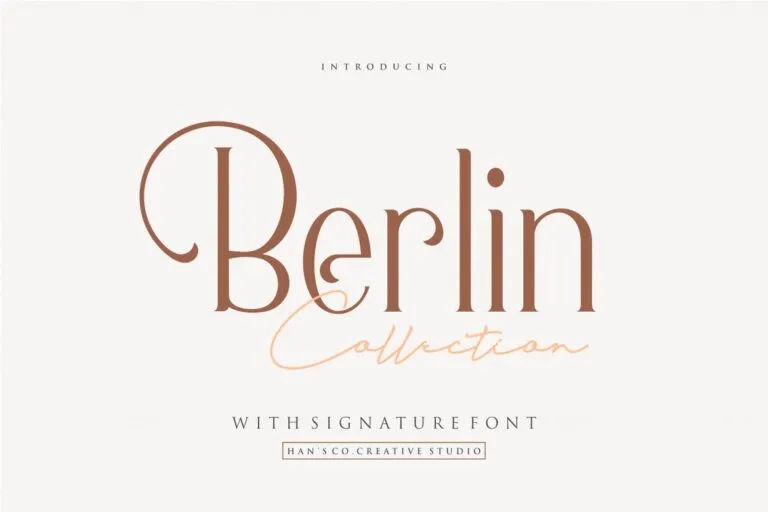
Berlin Collection pairs a sculpted curly serif with a fluid handwritten style, creating an iconic yet modern feel. It speaks softly but confidently, making it a perfect choice for skincare labels and souvenir designs.
2. Rotenfold
Rotenfold is a classy handwritten font with an understated sense of luxury. Its organic strokes add authenticity, making it a natural fit for fashion branding and photography-driven designs.
3. Nesans
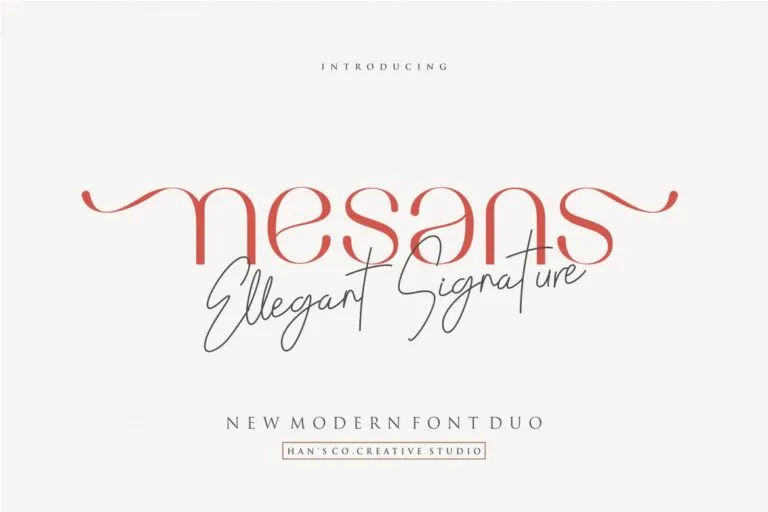
Nesans features clean, smooth sans serif forms with an elegant touch, making it a standout choice among fonts for minimalist design, especially for beauty products.
4. Latest Perfectly
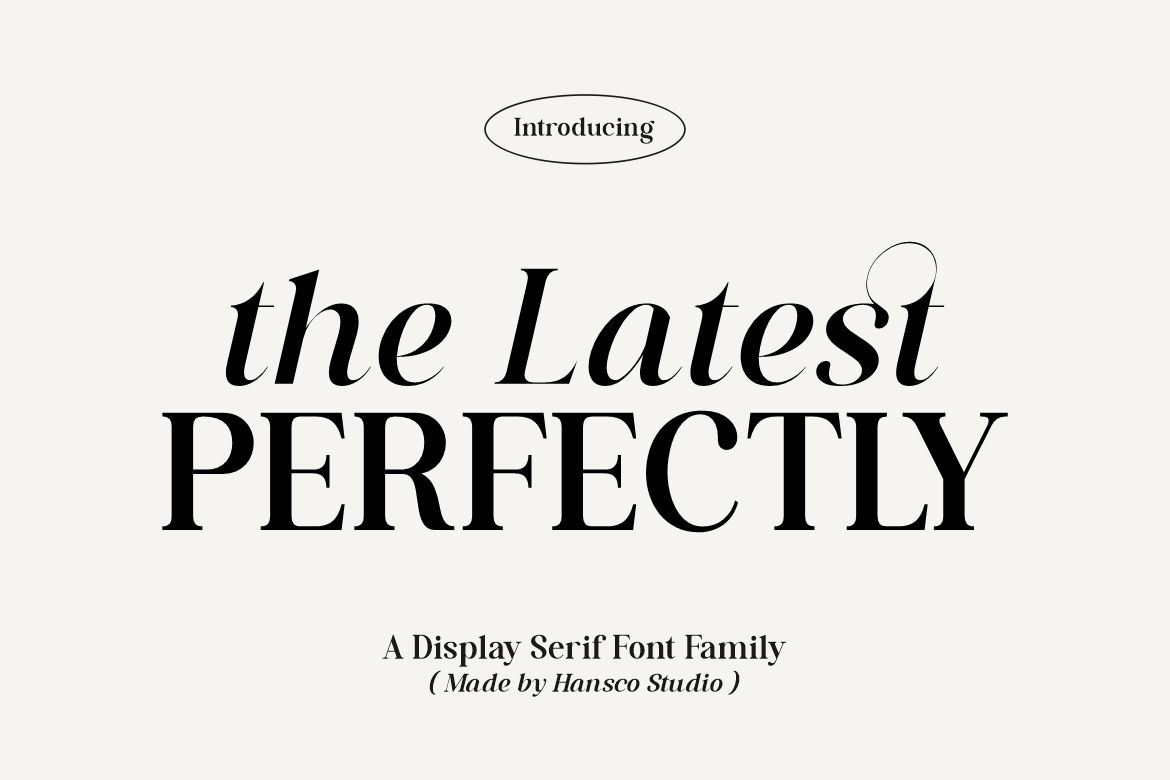
Combining classic serif details with a modern aesthetic, this font delivers a polished look suited for fashion branding, premium coffee, and natural beauty items.
5. Megarin
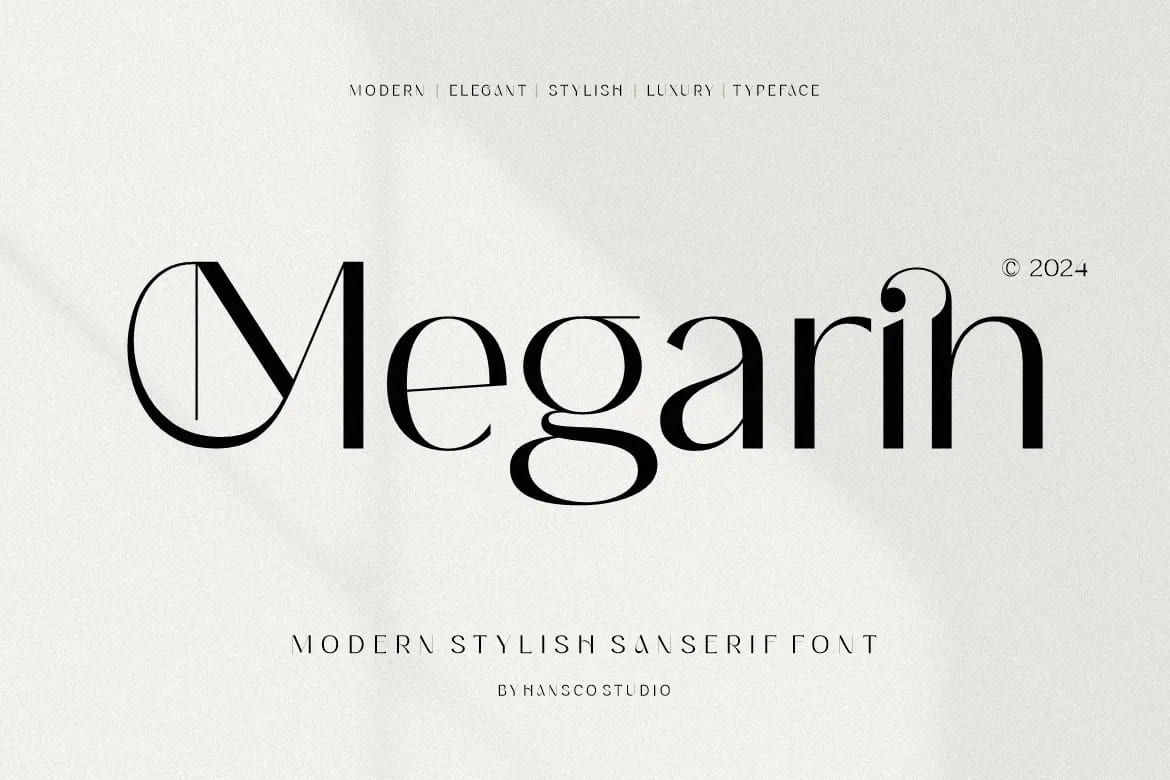
Megarin is a display serif font crafted with romantic inspiration. Its modern yet luxurious style delivers elegance, ideal for fragrance products or premium business visuals.
6. Chorles
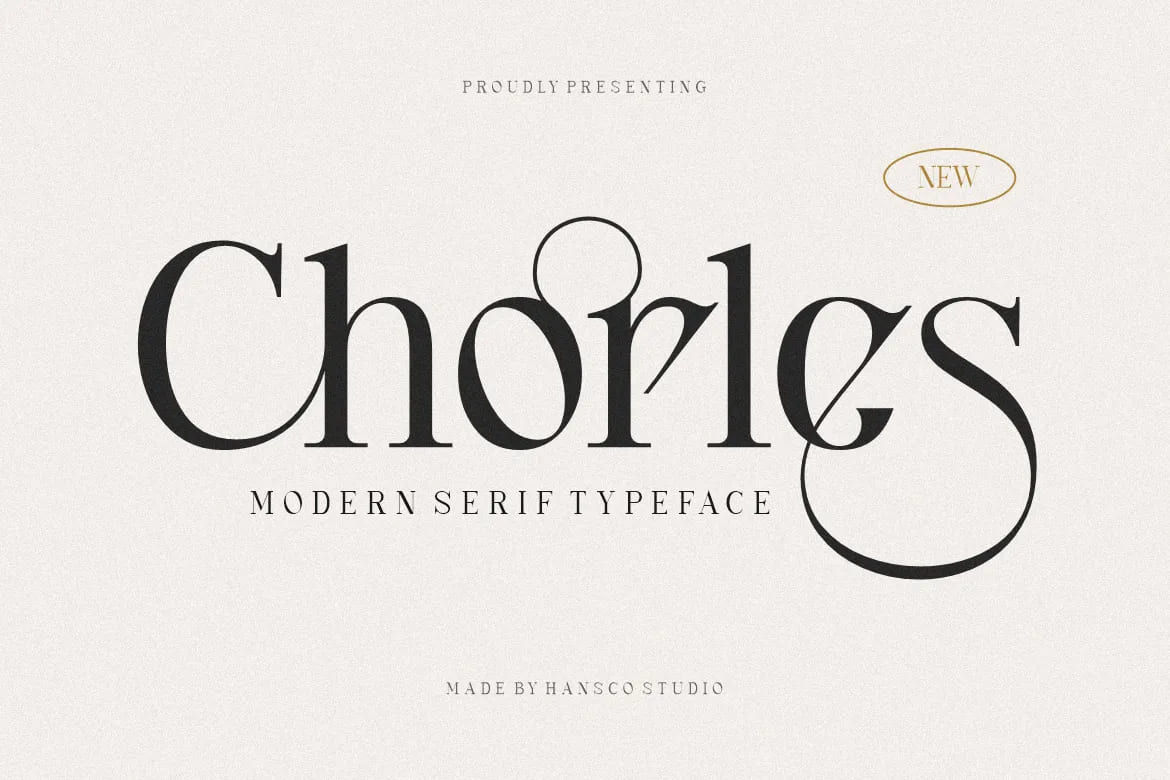
This font is inspired by romantic aesthetics and shaped into a modern luxury style. With its refined presence, it fits beautifully in fashion branding, invitations, and premium food and wine concepts.
7. Romla
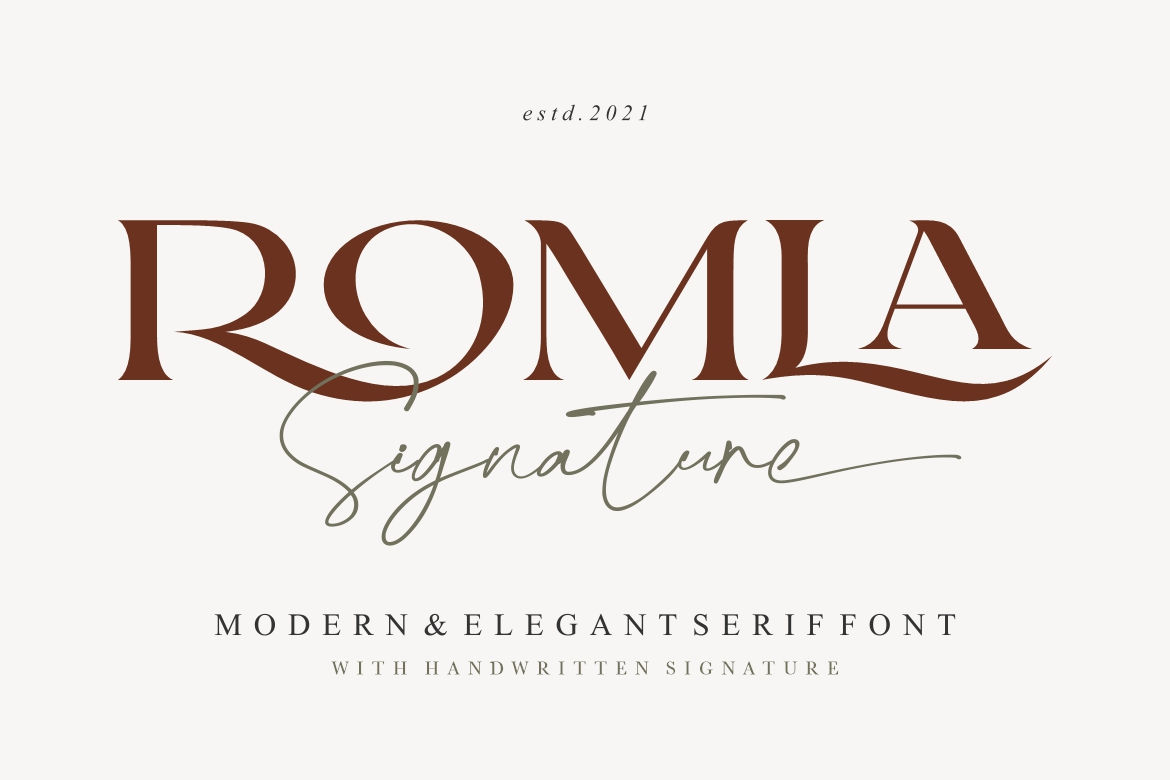
Romla blends modern elegance with a distinctive ballpoint signature style. This unique detail enhances design projects for fashion items, accessories, and hair salon branding.
8. Sunroll
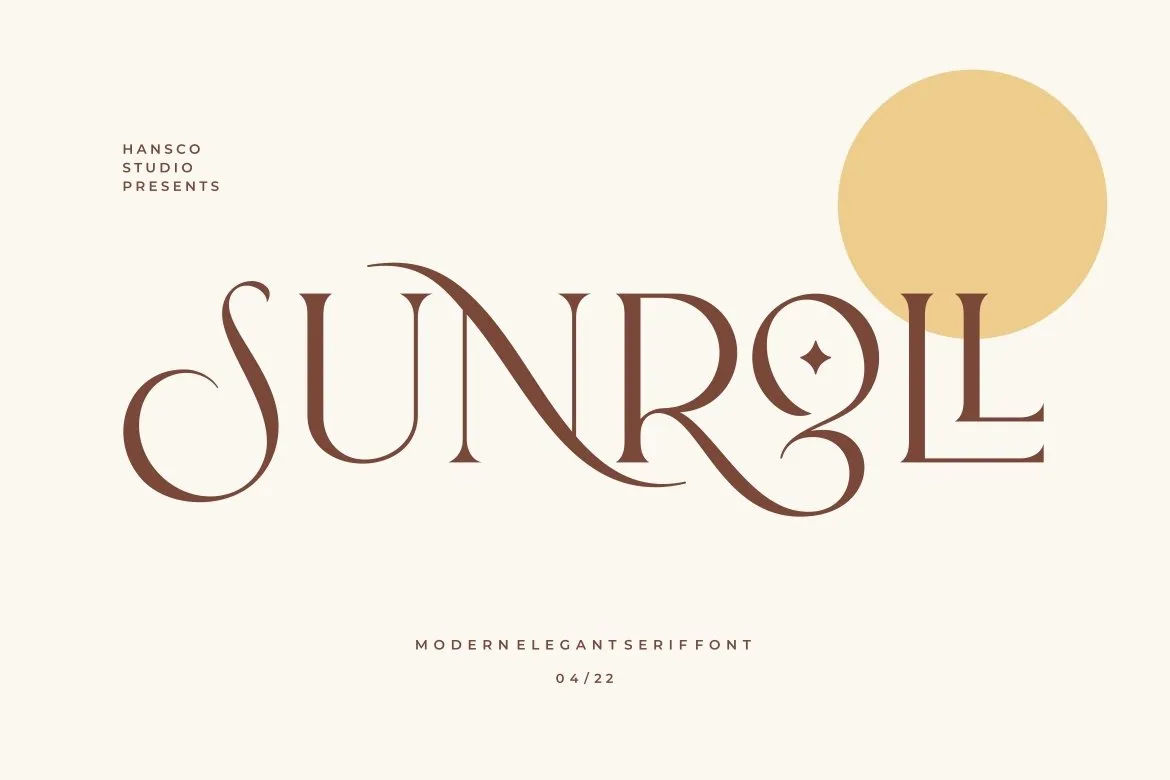
With a clean, modern profile and a classy tone, it fits seamlessly into fonts for minimalist design. It is ideal for home interiors, vegan food concepts, and beauty galleries.
9. Sonia
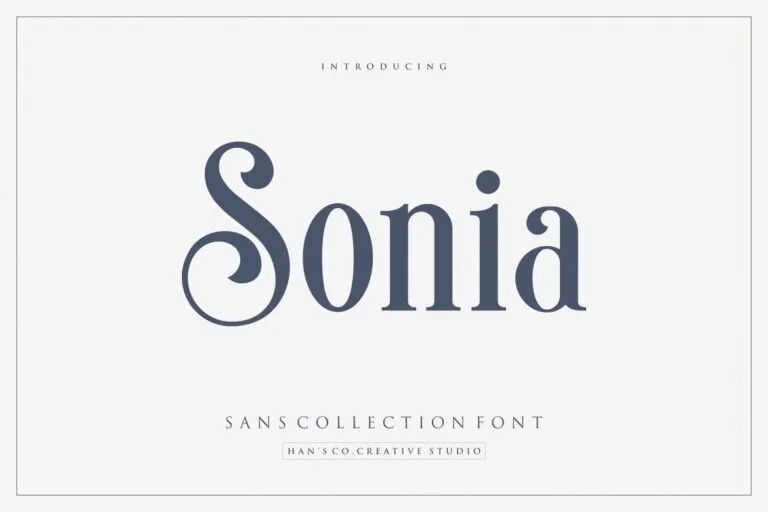
Sonia offers a refined yet approachable style, combining classic elegance with modern simplicity. Its casual character works beautifully for bakeries and wedding flower bouquet designs.
10. Crows
Inspired by ethnic vibes, Rows transforms traditional elements into a clean, modern form. Its elegant presence suits home décor, handmade coffee concepts, book covers, and bakery branding.
11. Berlys
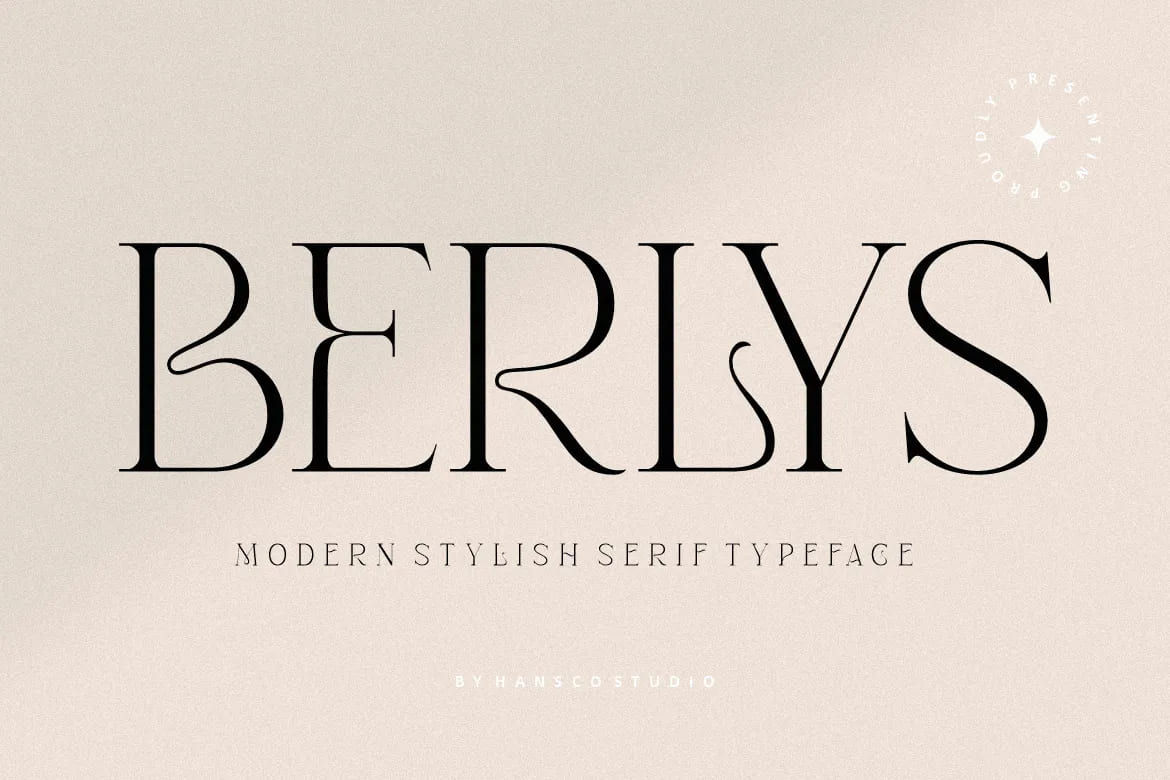
Berlys is a serif font inspired by romantic aesthetics and refined into a unique, luxurious style. Its elegant presence makes it a beautiful choice for a minimalist café or boutique.
12. Halima Sofira
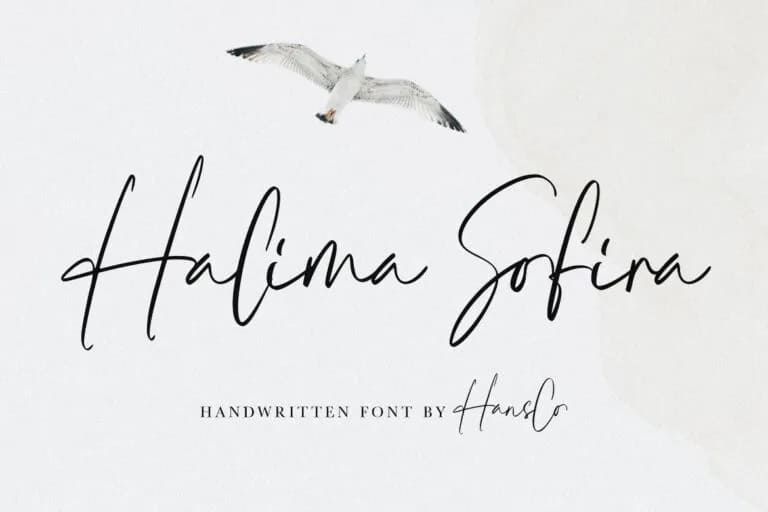
Halima Sofira is a handwritten font with a unique balance of luxury and casual charm. Rooted in natural handwriting, it brings authenticity to home interior concepts and fashion businesses.
13. Balistone
Balistone is an elegant handwritten font with a modern touch, making it a refined choice among fonts for minimalist design for premium restaurant branding.